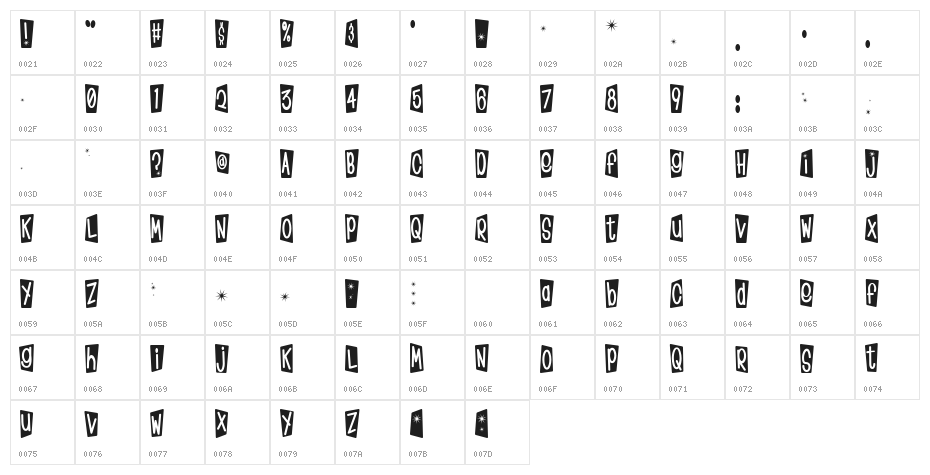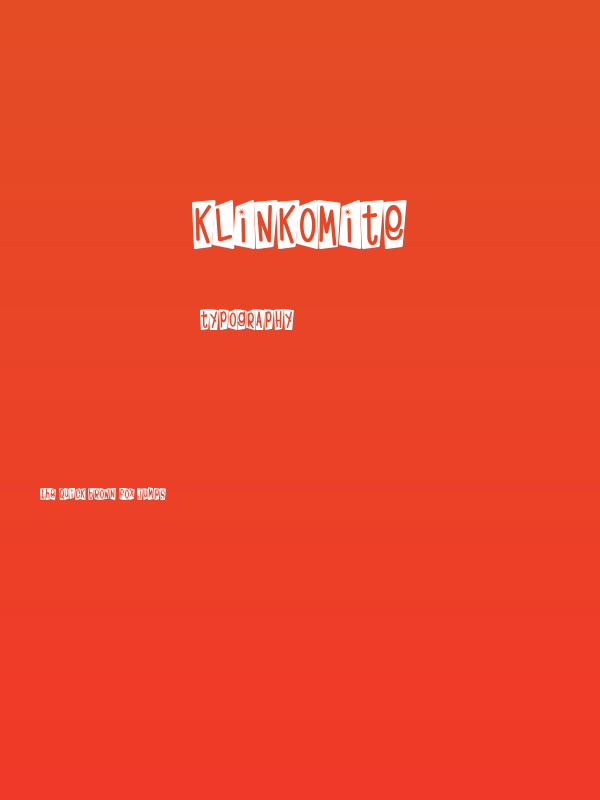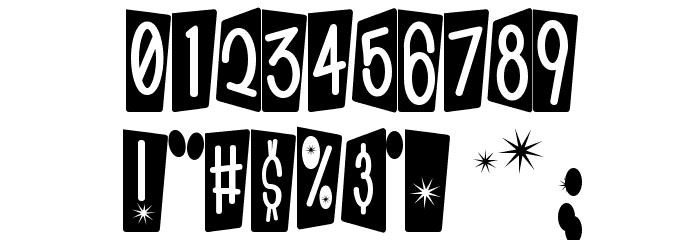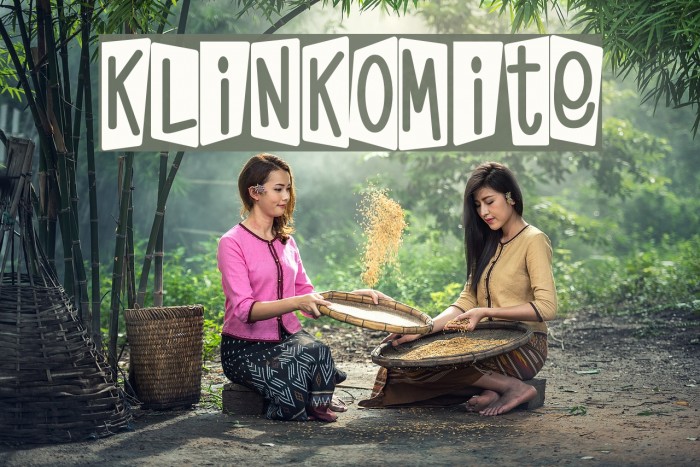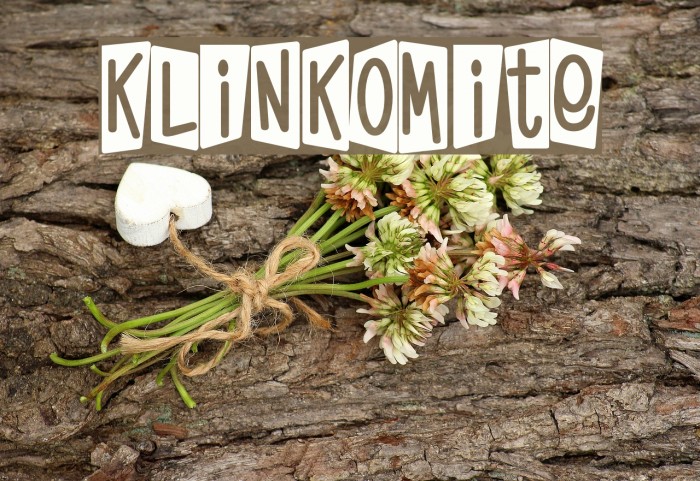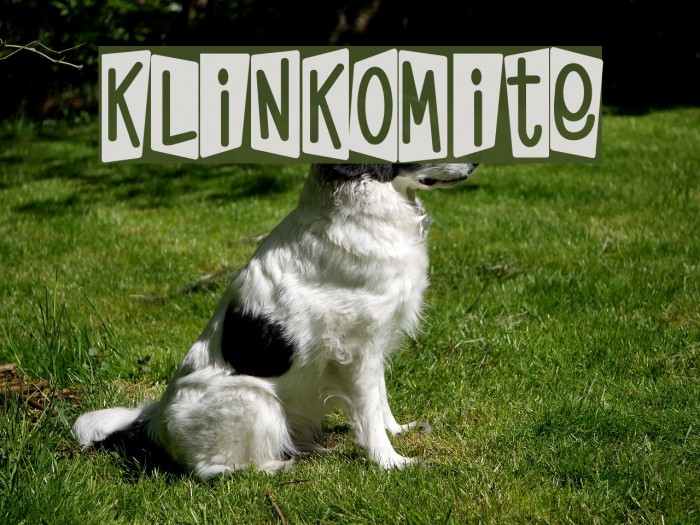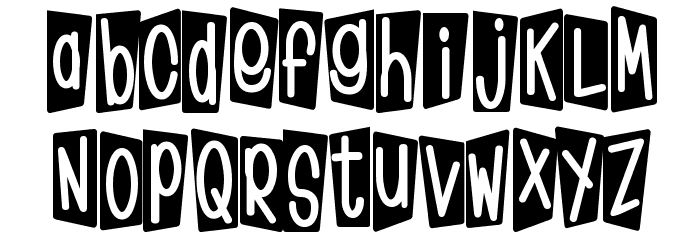
KlinkOMite Font
KlinkOMite Description
This font features a playful and bold design with each character enclosed in a tilted rectangle, creating a dynamic and eye-catching effect. The letters are rounded and slightly irregular, adding a whimsical touch. The uppercase and lowercase letters maintain a consistent style, with the numbers and special characters following the same playful theme. The font's unique presentation makes it stand out, perfect for projects that require a fun and engaging visual element.
| Overall Style | Playful, Whimsical |
| Proposed Projects | Great for children's books, comic strips, playful branding, event posters, and creative social media graphics. |